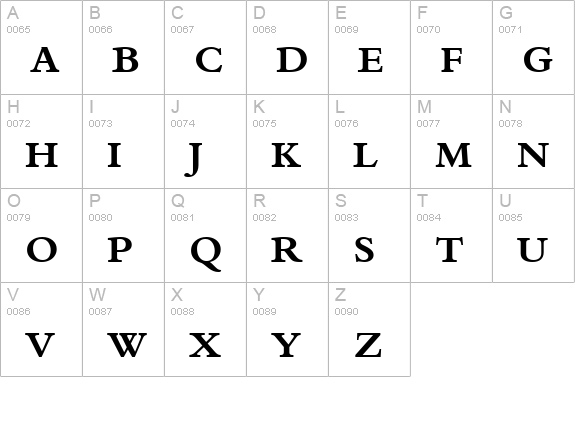
Traditional Arabic Bold is a strong, high-contrast variant in the Traditional typeface family \xE2\x80\x94 well suited to headlines, attention-grabbing titles, and strong calls-to-action.
Introducing Traditional Arabic Bold, a captivating and timeless font that beautifully captures the essence of Arabic calligraphy. This bold and expressive typeface is characterized by its strong, confident strokes and intricate detailing. Every letter is meticulously crafted to exude elegance and sophistication, making it perfect for a wide range of design projects. Traditional Arabic Bold is a celebration of the rich cultural heritage of the Arabic language. It effortlessly combines tradition with modernity, resulting in a font that is both classic and contemporary. Its bold weight adds a touch of power and impact to any design, making it ideal for headlines, logos, posters, and more. What makes Traditional Arabic Bold even more enticing is the fact that it is available for free download at FontsMarket.com. This means that you can easily access and utilize this exceptional font in your design endeavors without any cost or hassle. Whether you are a professional designer or someone looking to add a touch of Arabic elegance to your personal projects, Traditional Arabic Bold is the perfect choice. With its versatility and timeless appeal, Traditional Arabic Bold is sure to leave a lasting impression on your audience. So, why wait? Download this remarkable typeface today from FontsMarket.com and unlock a world of possibilities for your creative endeavors.